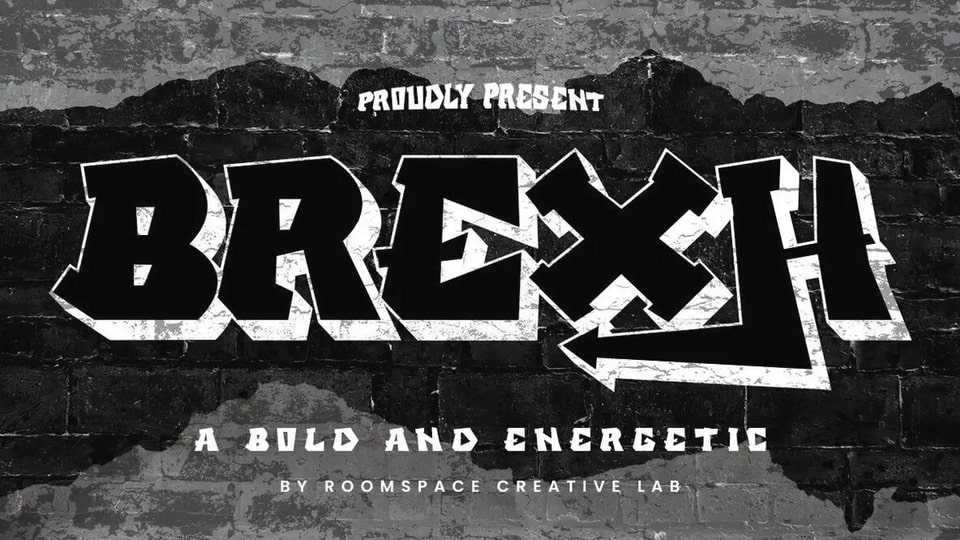
Download Brexh font, a bold graffiti-inspired display typeface with raw energy built for urban, loud, fearless design that fuses blackletter structure with raw, streetwise energy.